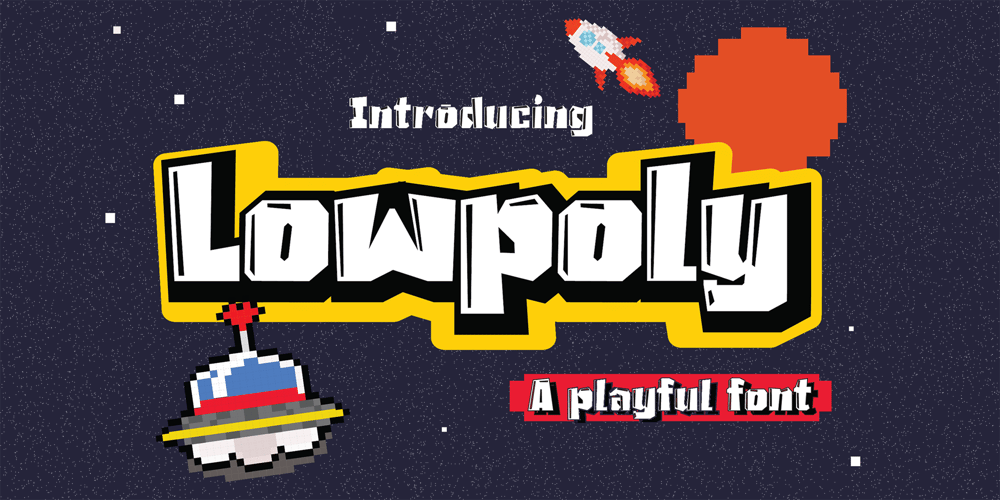
Lowpoly
Lowpoly font
Lowpoly Font Family was designed by Heri Imanudin and published by Krafted. Lowpoly contains 1 styles and family package options. Want to give your design a bit of that vintage look we all love? Great idea, because the right font can change the way people see your brand.Introducing Nostalgiz – a Vintage Modern Font.Whether you’re designing presentations, ads, social media campaigns, or merchandise, Nostalgiz can step up to the task. Try it out and see what a difference a unique font can make.What you’ll get: Multilingual & Ligature Support Full sets of Punctuation and Numerals Compatible with: Adobe Suite Microsoft Office KeyNote Pages Software Requirements: The fonts that you’ll receive in the pack are widely supported by most software. In order to get the full functionality of the selection of standard ligatures (custom created letters) in the script font, any software that can read OpenType fonts will work. We hope you enjoy this font and that it makes your branding sparkle! Feel free to reach out to us if you’d like more information or if you have any concerns